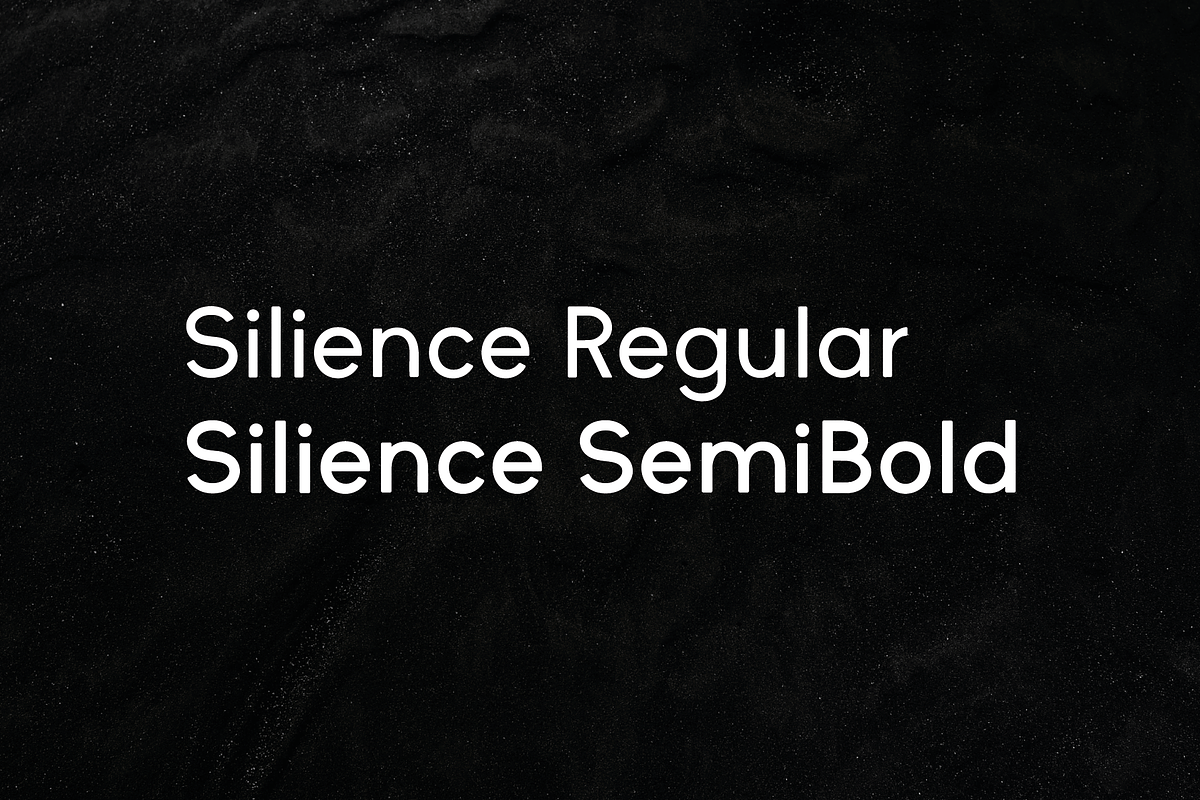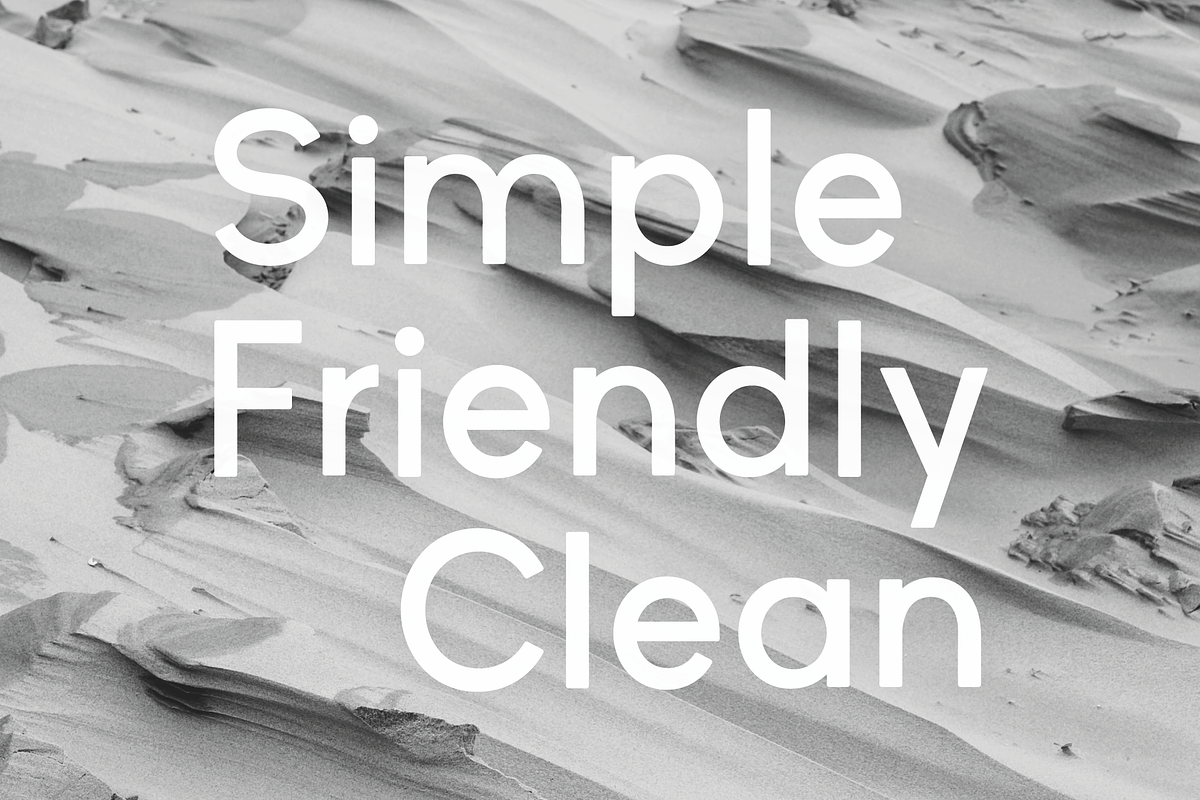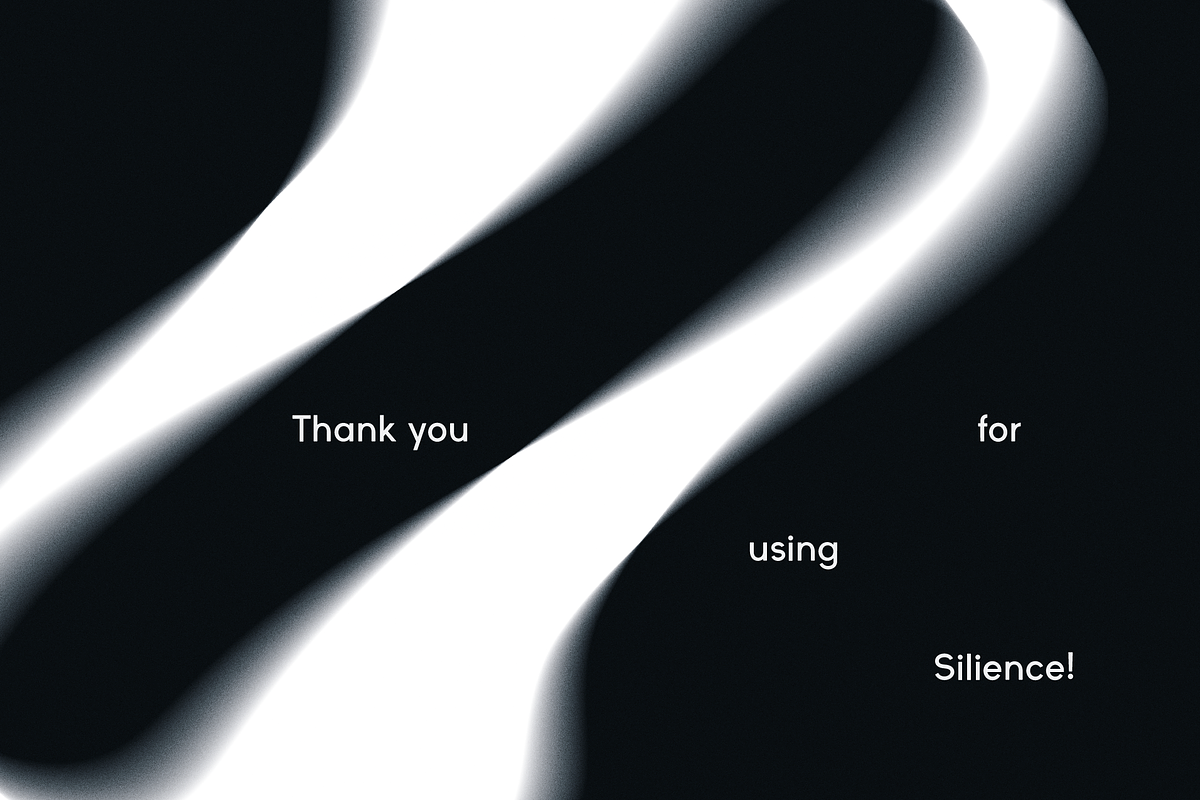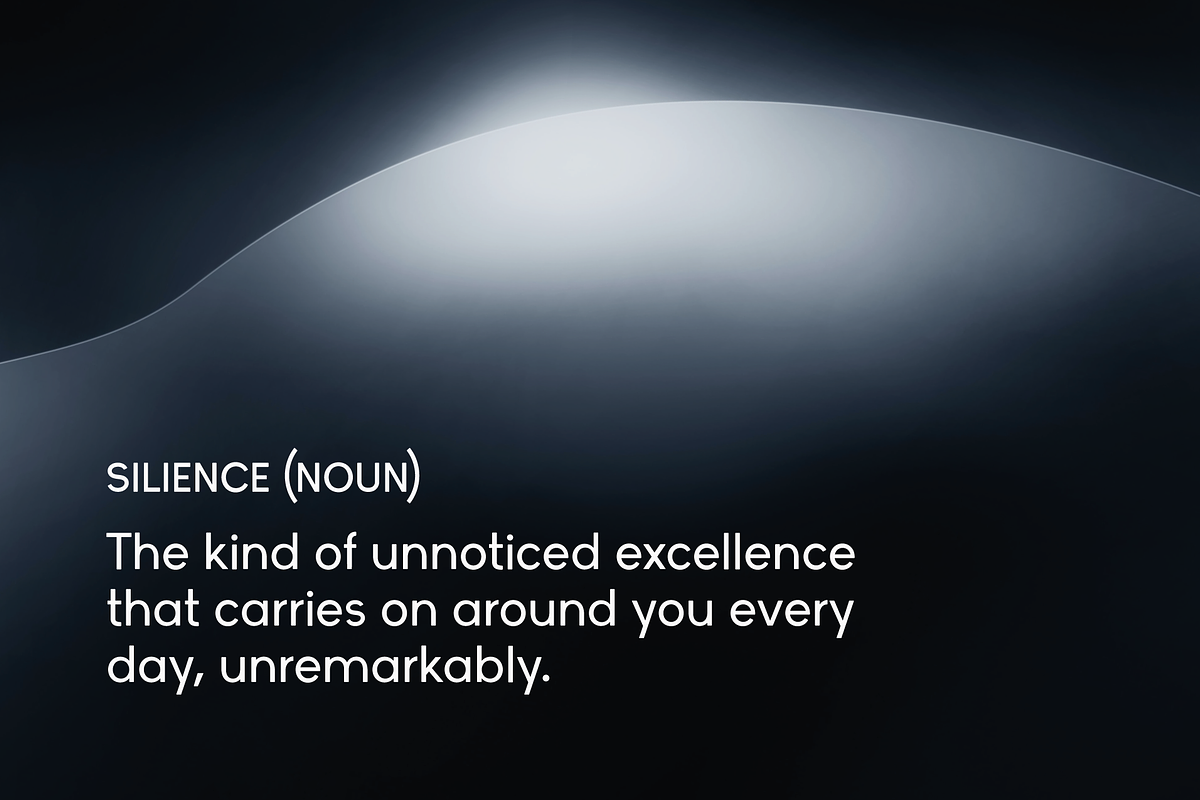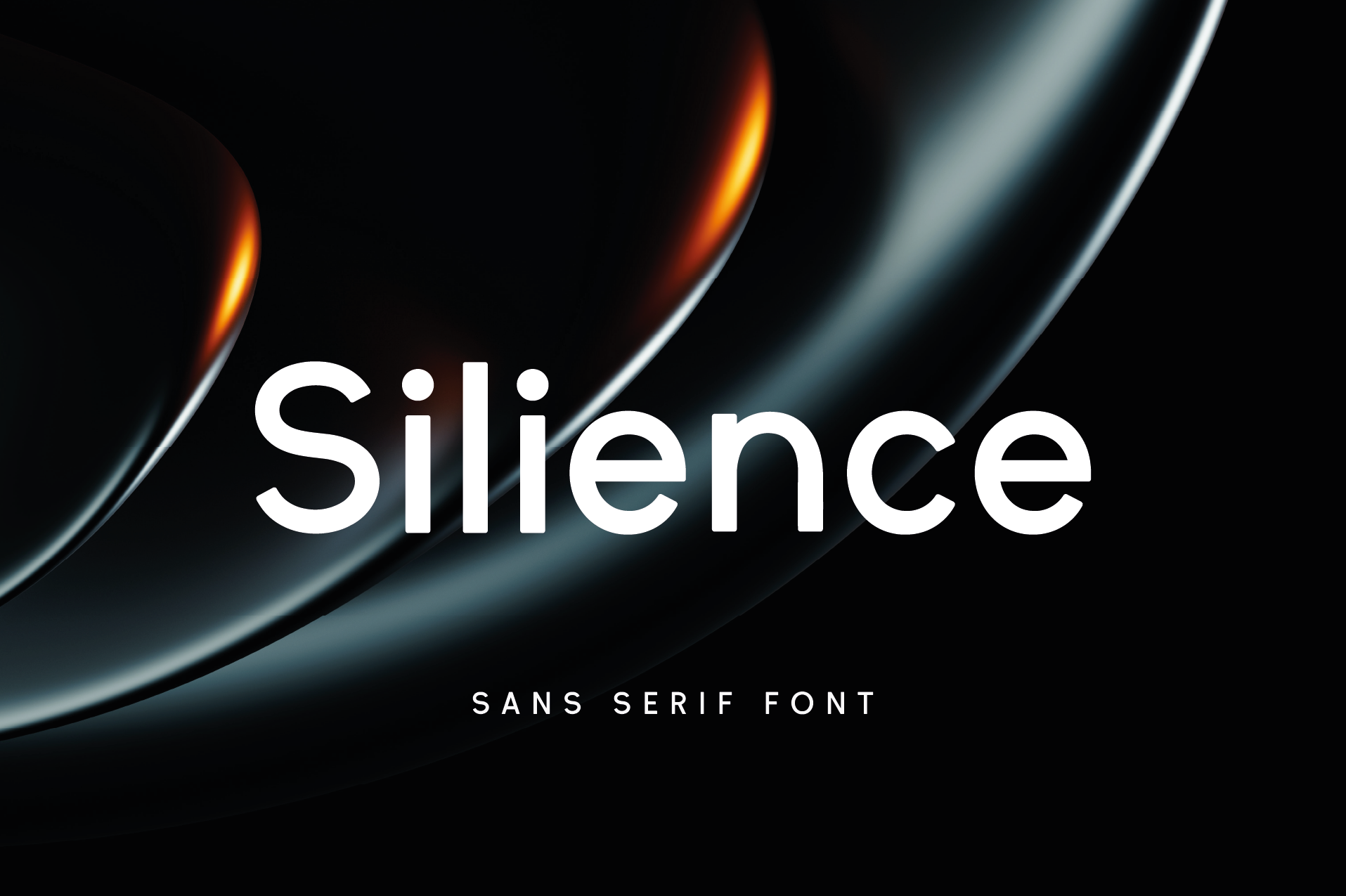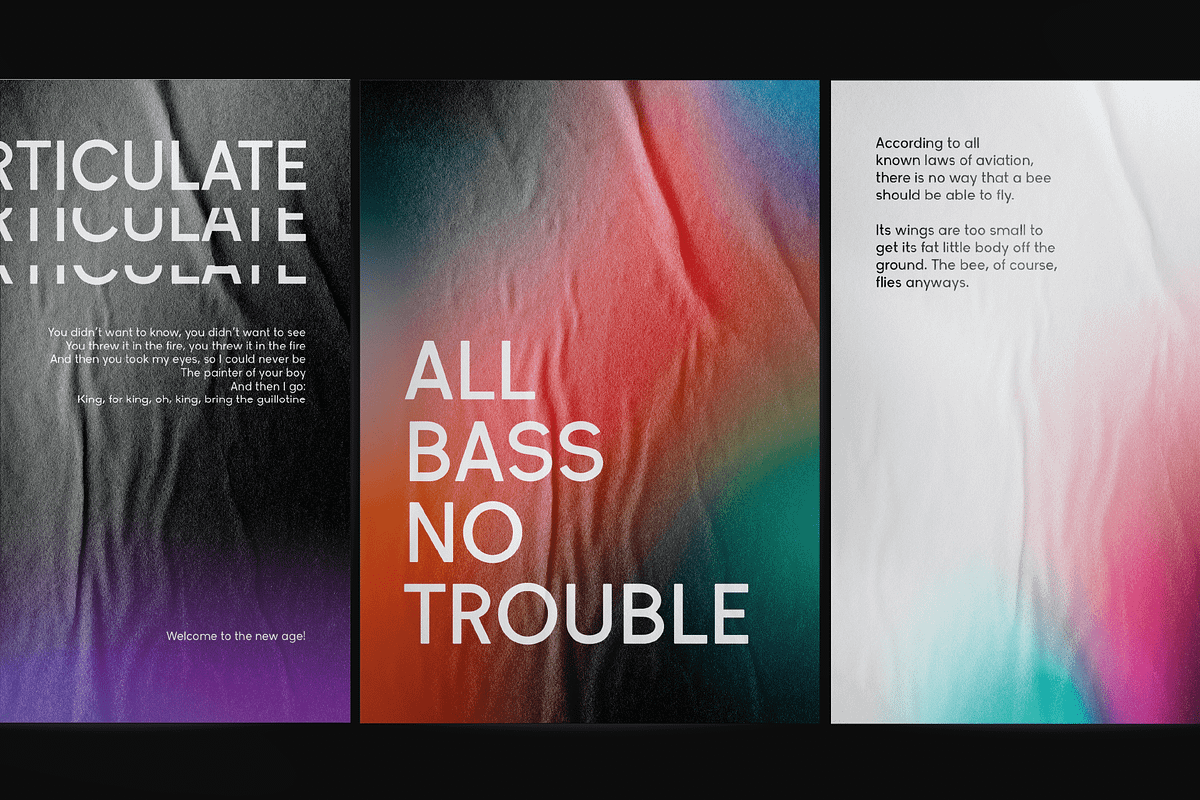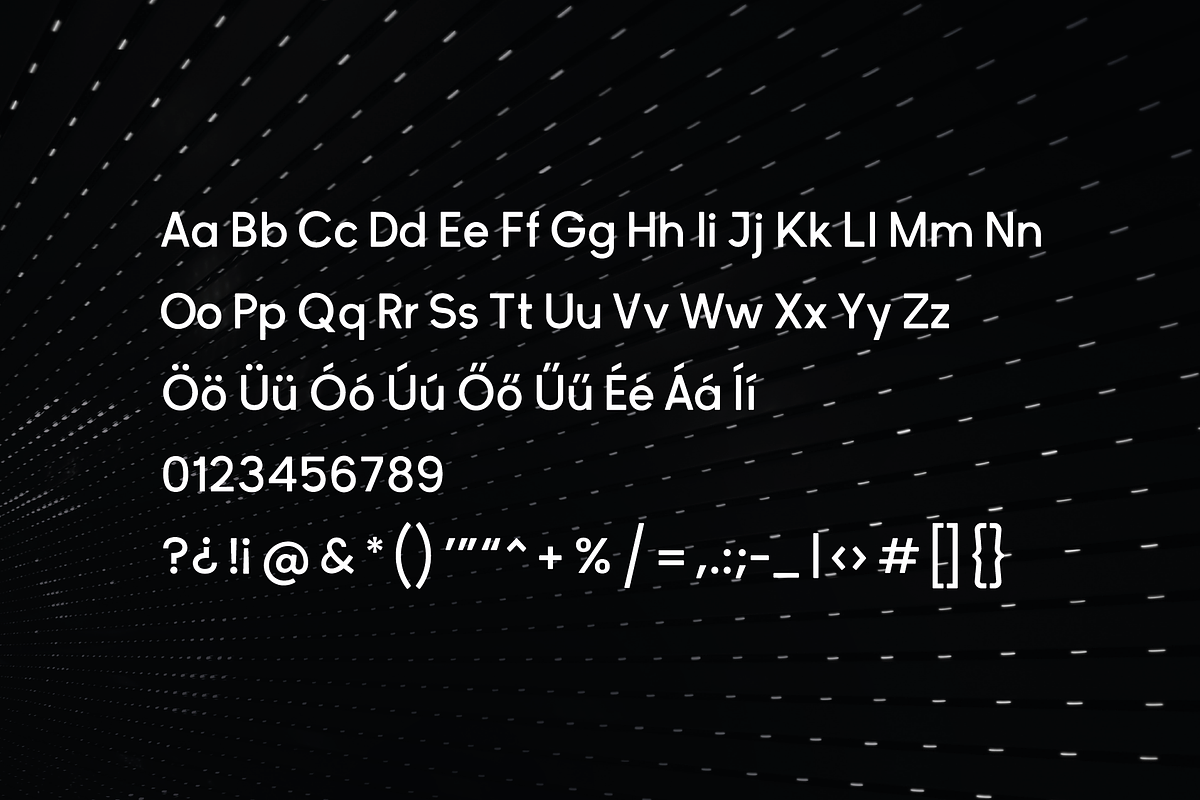
Silience | Sans Serif Font
Silience is a geometric typeface with an elegant, yet friendly look. Consistent line heights, weights & angles make Silience cohesive & professional. Regular & SemiBold versions of the font are included. Great for branding, logos, header & body texts.